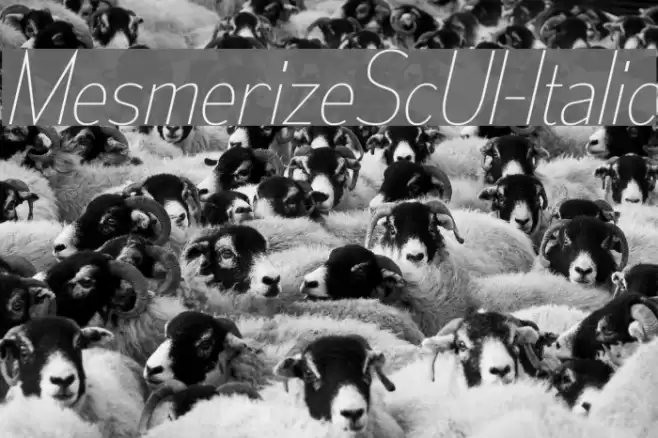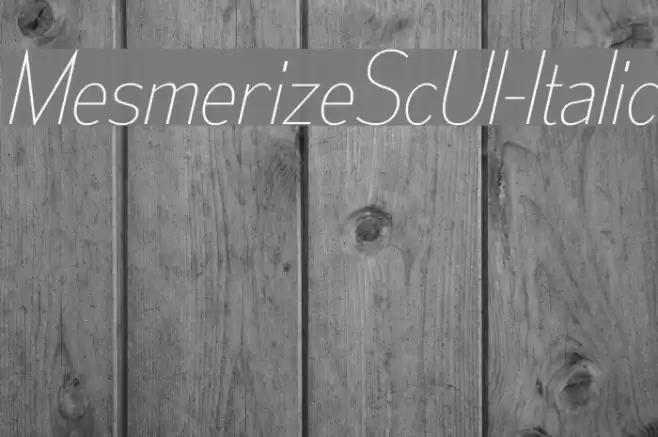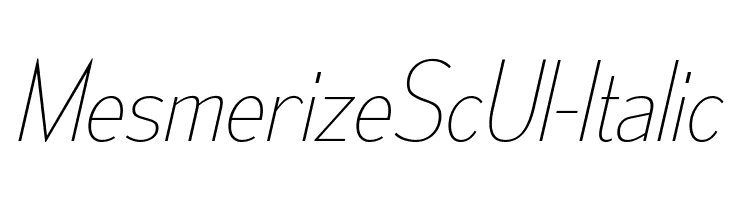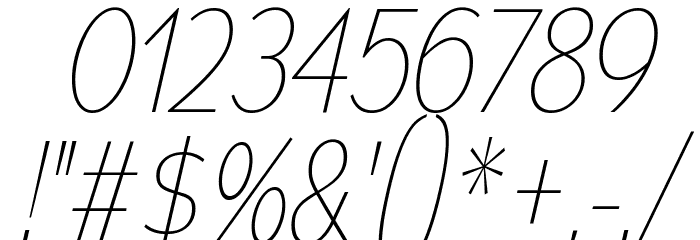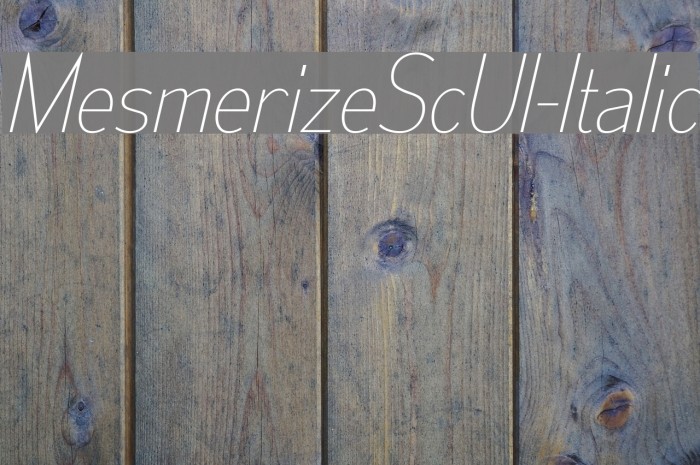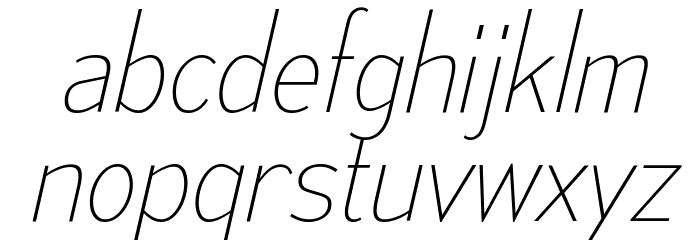
MesmerizeScUl-Italic Font
MesmerizeScUl-Italic Description
This font features a sleek and elegant design with a modern twist. The characters are italicized, giving them a dynamic and fluid appearance. The strokes are thin and consistent, contributing to a clean and sophisticated look. The uppercase and lowercase letters maintain a uniform style, with a slight slant that enhances readability while adding a touch of flair. The numerals and special characters are designed to match the overall aesthetic, ensuring a cohesive appearance across all text. This font is ideal for projects that require a contemporary and stylish touch.
A sleek, italicized font with thin strokes and a modern aesthetic from Uncategorized fonts.
- Proposed Projects: Ideal for fashion magazines, modern branding, elegant invitations, and digital media.
- Weight: Light